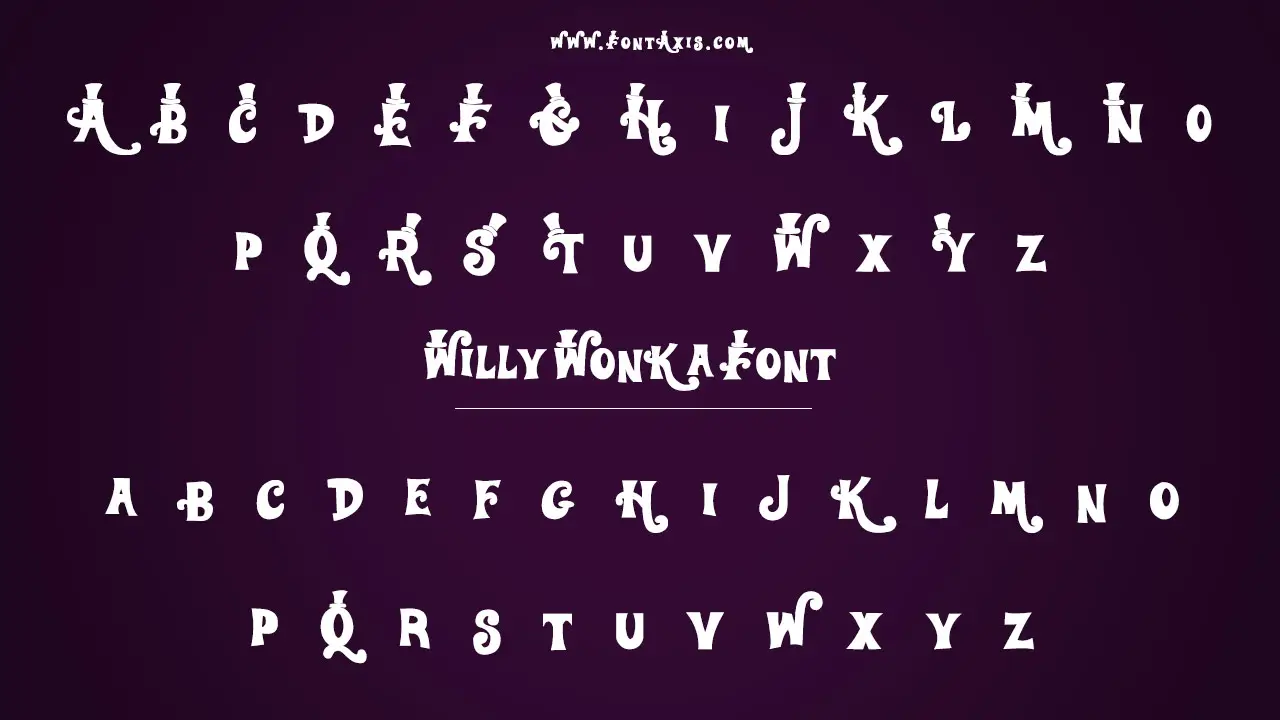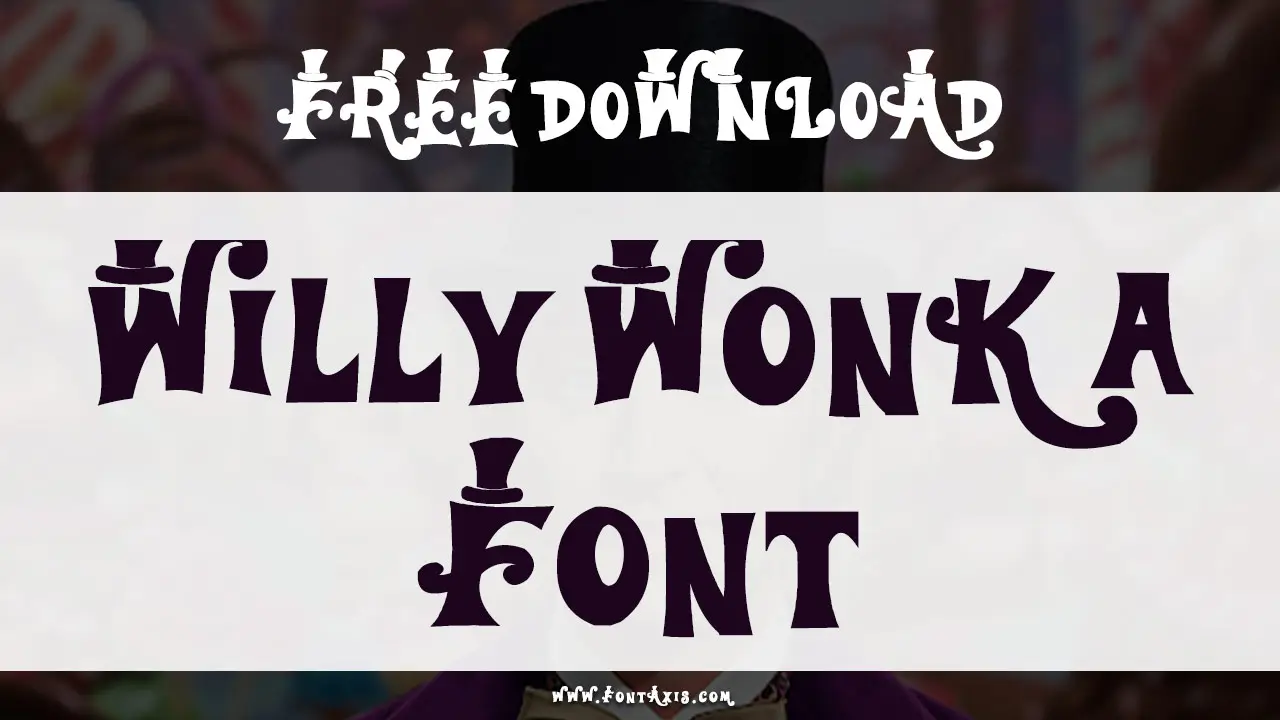
The Willy Wonka Font is a playful and fancy display typeface inspired by the whimsical world of Willy Wonka & the Chocolate Factory, based on Roald Dahl’s classic novel.
First introduced as a retro font with old-school charm, it evokes the magic and creativity of Mr. Willy Wonka and his fantastical chocolate factory. Its unique curves, inspired by candy canes and retro typography, make it a popular font choice for creative and fun designs.
Where Willy Wonka Font Is In Use
- Wonka Bar Packaging: Ideal for recreating the classic “Wonka Bar” logo.
- Chocolate Factory Themes: Perfect for posters and branding related to Willy Wonka events or projects.
- Candy and Sweet Branding: Use for packaging and advertising candy-related products.
- Magical Posters: Great for designs that need a whimsical, childlike charm.
- Printed Materials: Invitations, party decorations, or documents inspired by Pure Imagination.
- Digital Graphics: Text overlays on graphics for social media, websites, or SVG projects.
The Willy Wonka Font is a delightful blend of whimsy, creativity, and retro charm. From packaging designs inspired by candy to magical posters and custom typography projects, it’s a versatile typeface for capturing the magic of Mr. Wonka’s world. Whether designing for chocolate-themed events or modern branding, this font offers endless possibilities for creativity and imagination.
The Willy Wonka Font primarily features uppercase letters, designed for bold, impactful text that stands out. This makes it perfect for headlines, logos, and titles where legibility and emphasis are key.
While it doesn’t have lowercase letters, the uppercase characters are designed to create striking and dynamic typography. If you need to create more diverse text or sentences, consider pairing the font with a complementary sans-serif font for a well-balanced design.
No, the Willy Wonka Font is not the official font used in the Willy Wonka movie. However, it closely resembles the retro style of the Wonka Bar and film branding.
The font’s design captures the whimsical and quirky vibe that the movie and its associated products portray. It is popular for fans and designers looking to create Willy Wonka-inspired designs. It evokes the nostalgic, playful essence of the classic film without being a replica of the official branding.